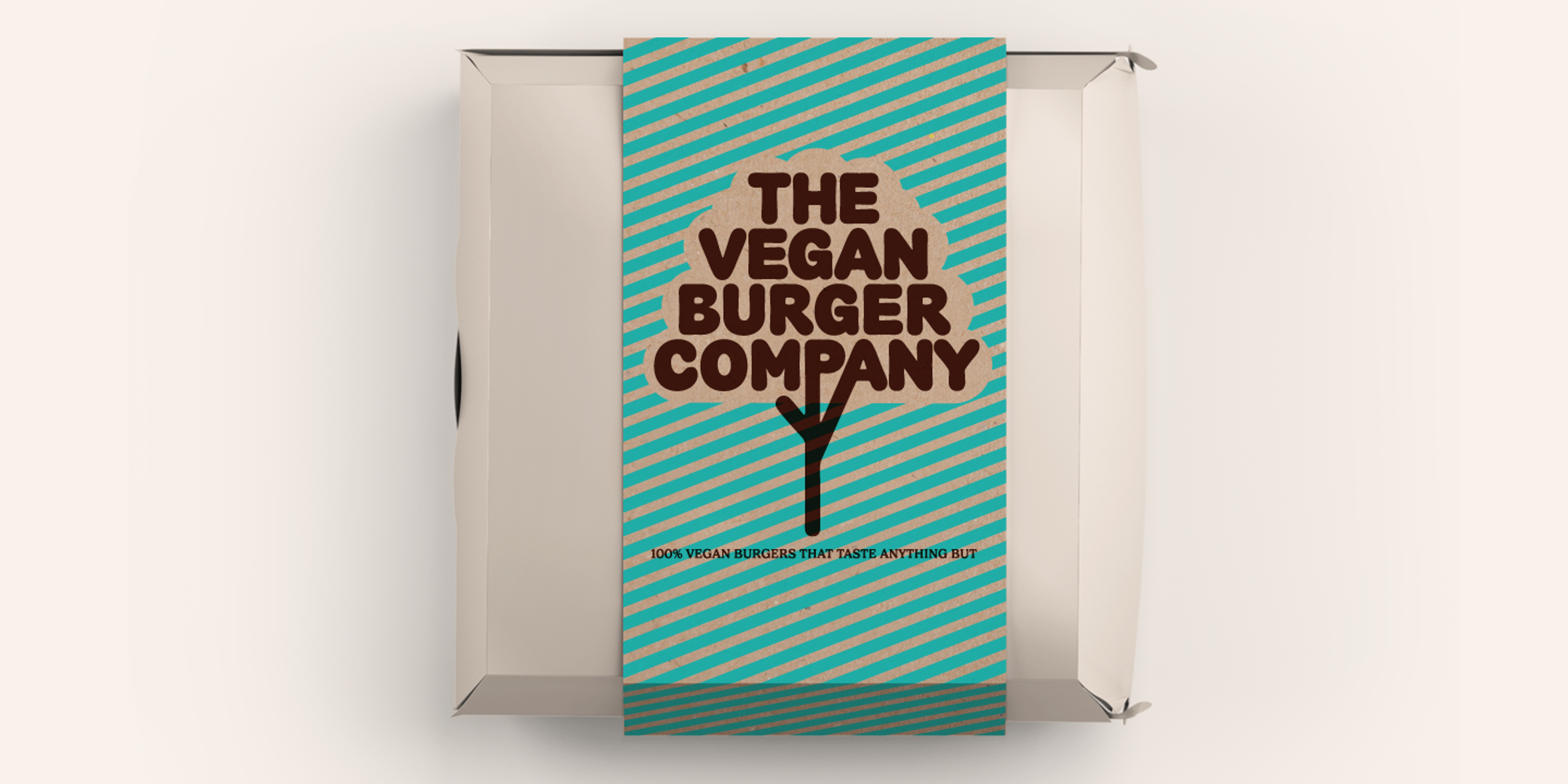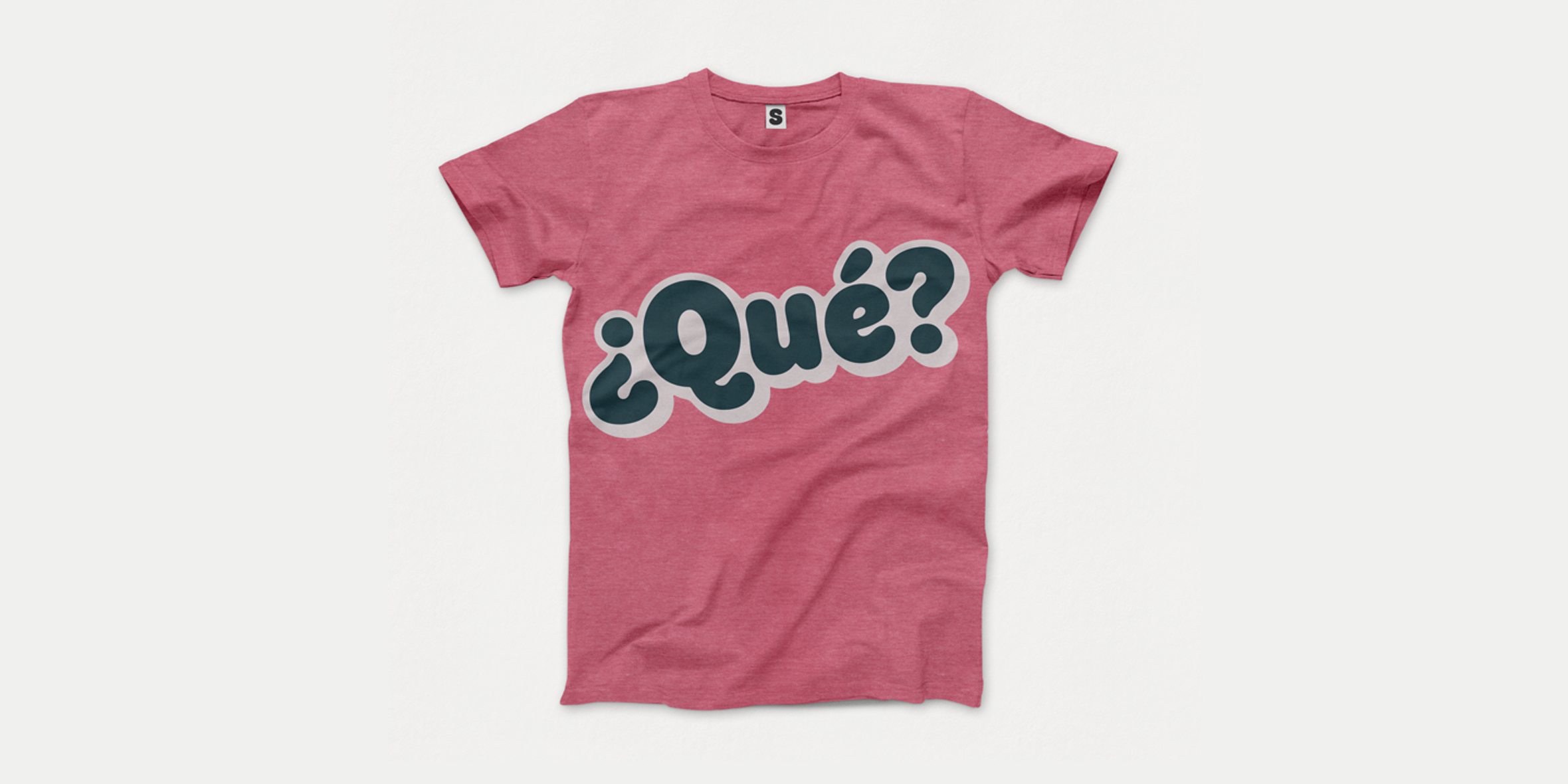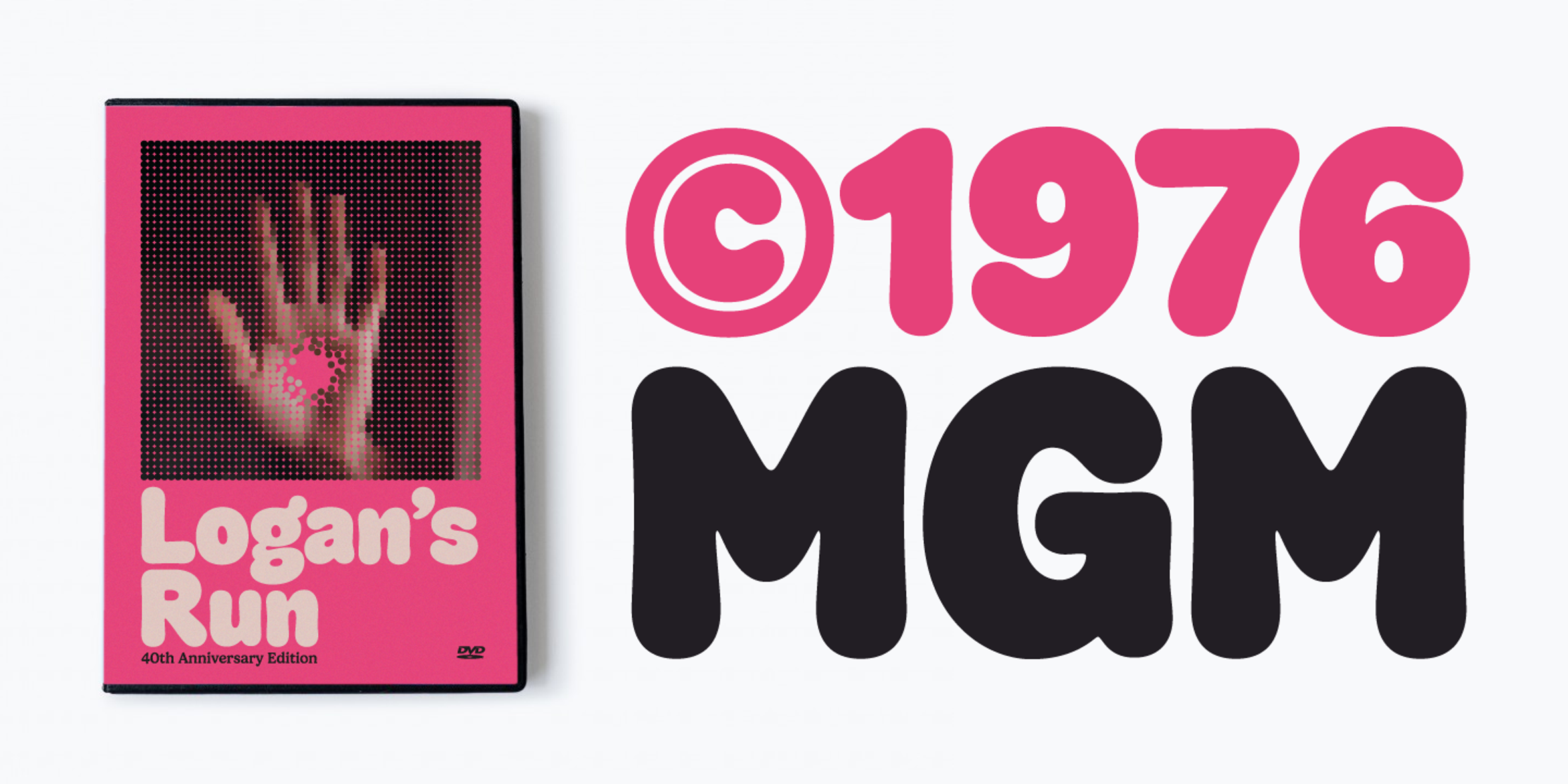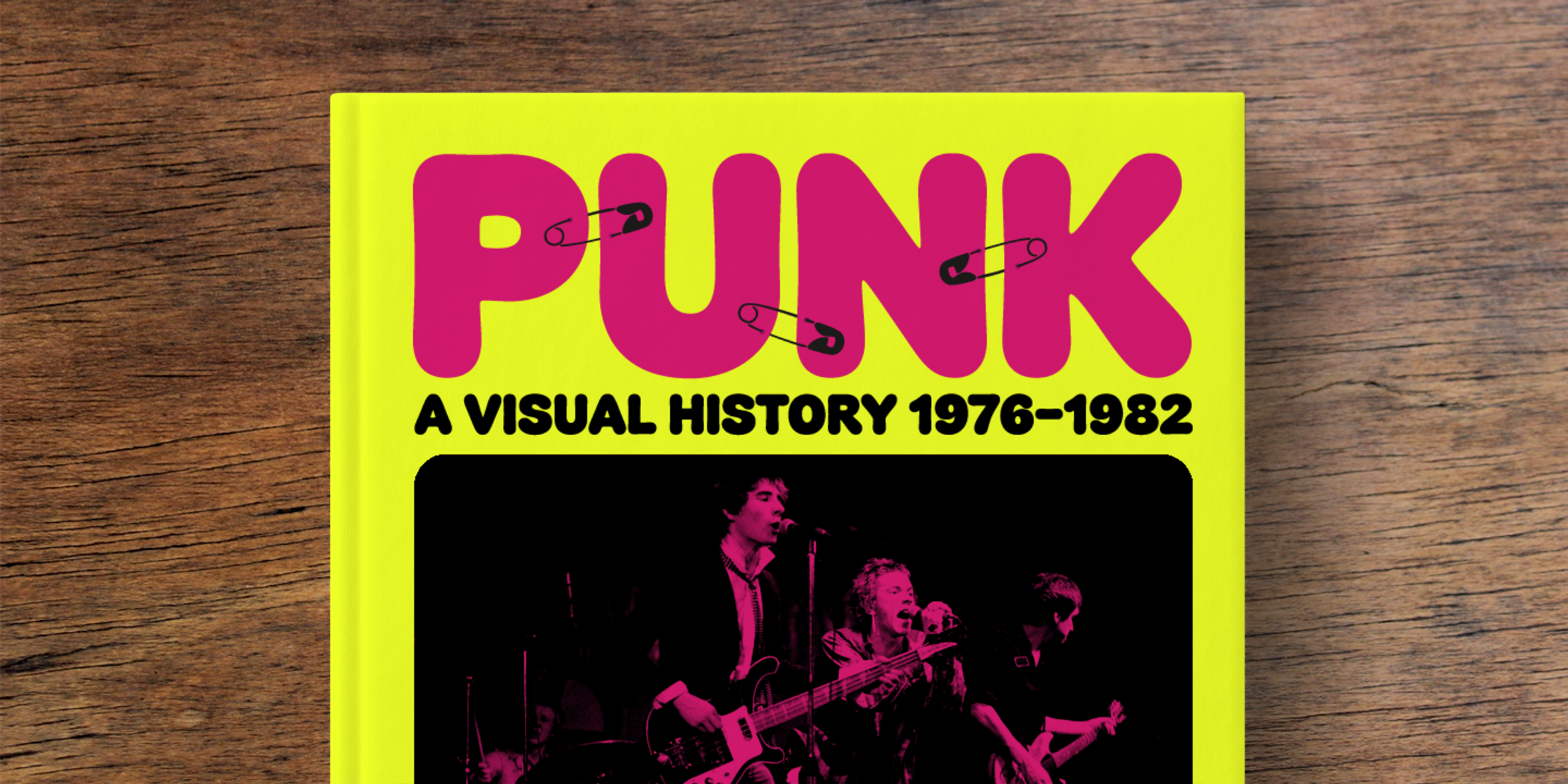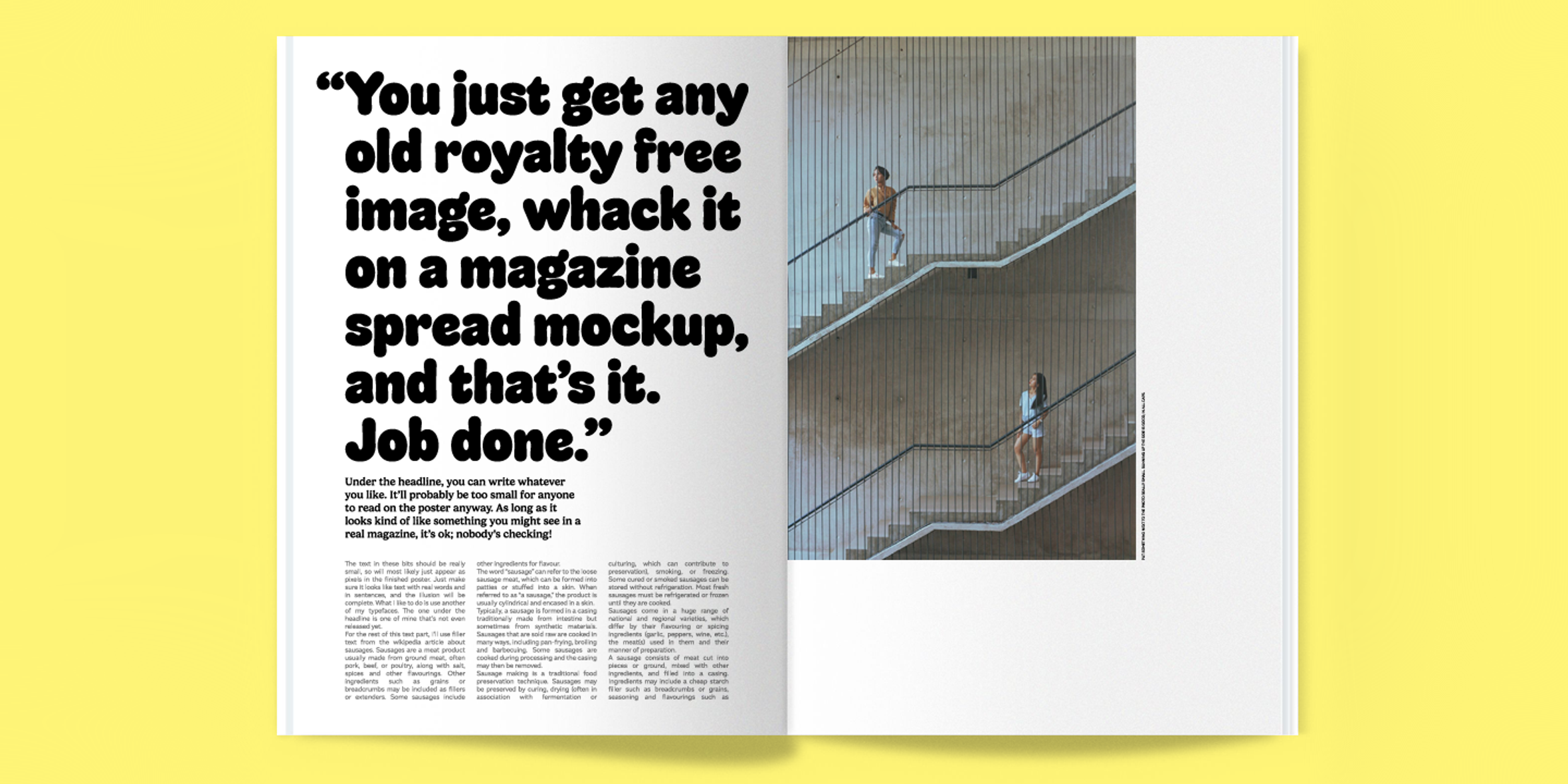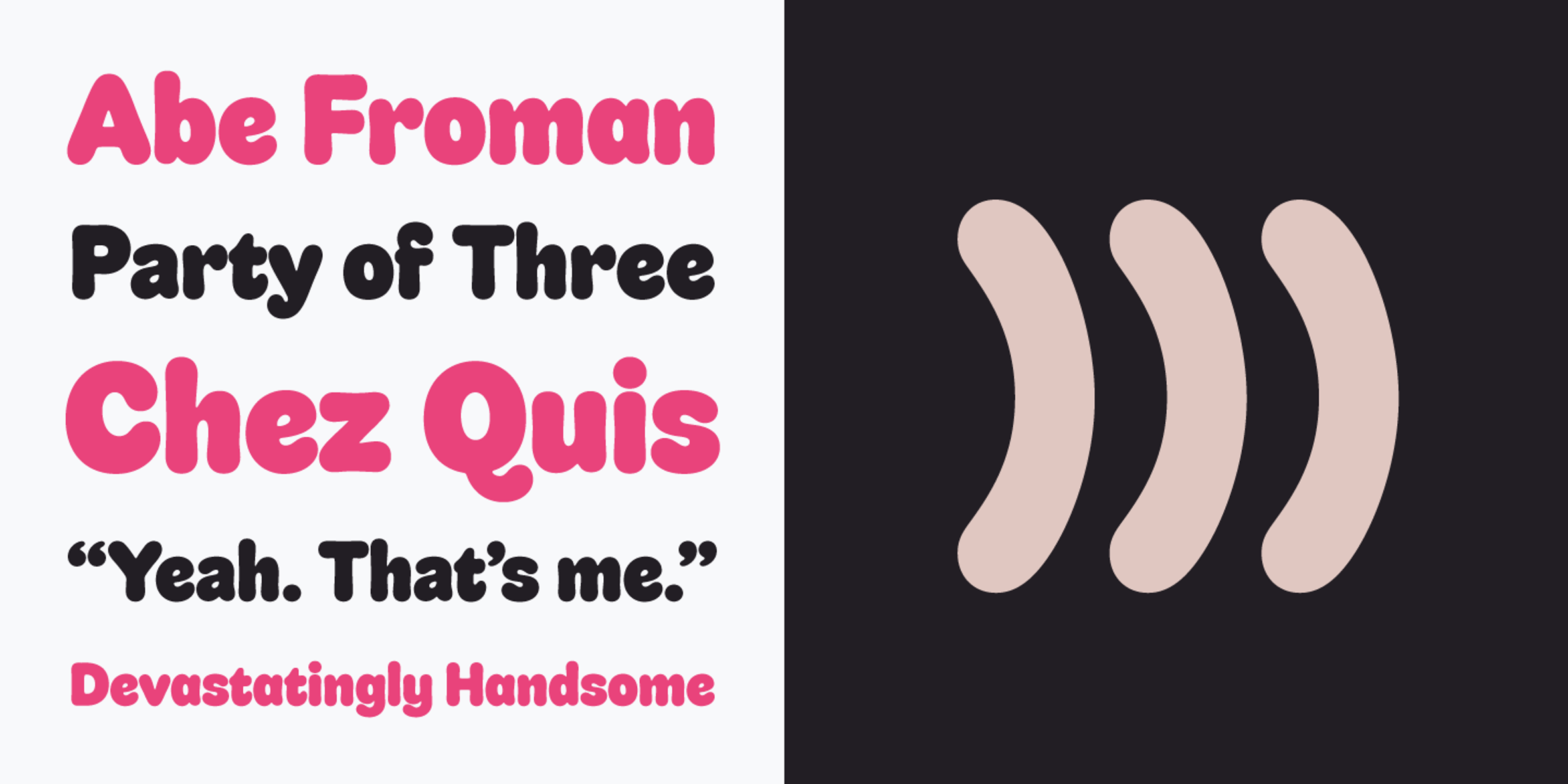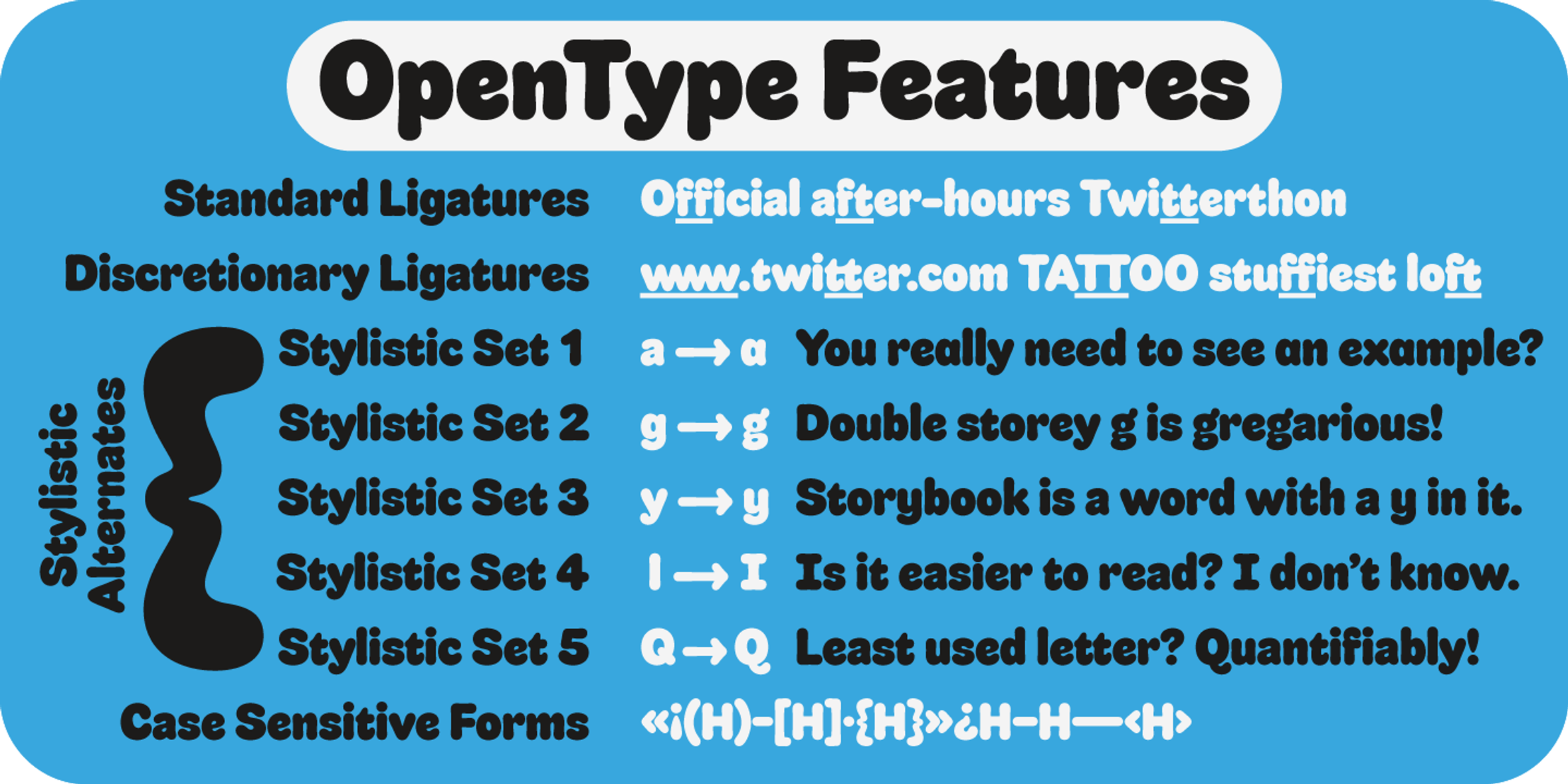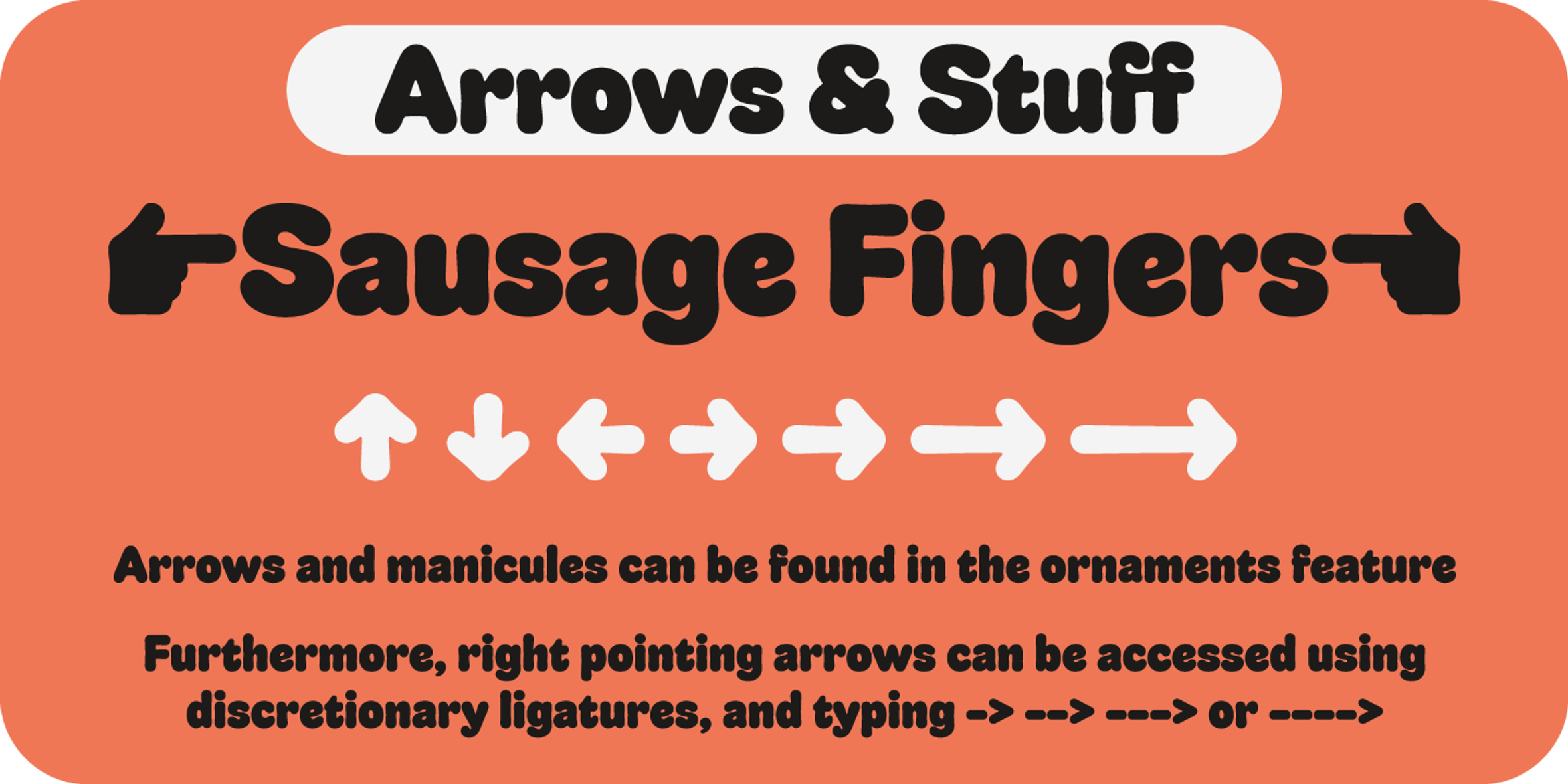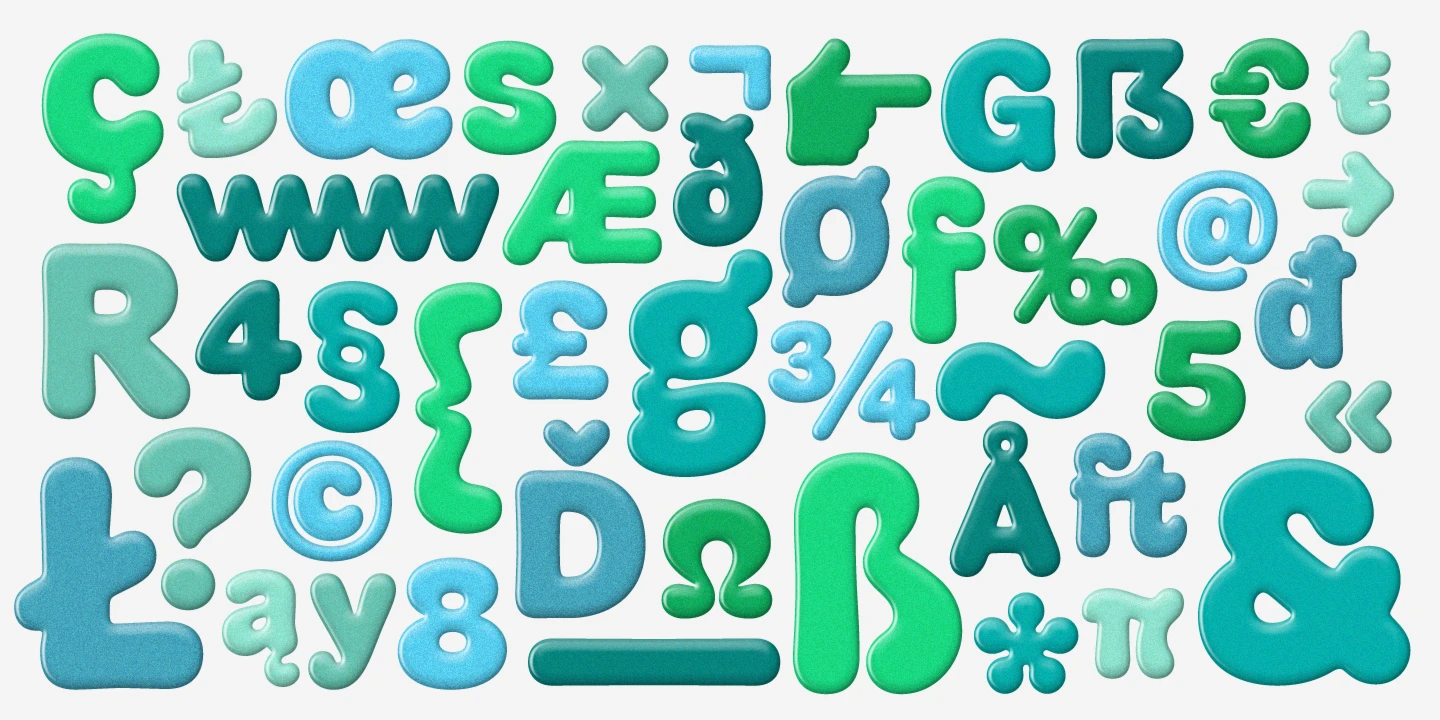
Sausage Font
Sausage
Sausage is unapologetically bold and bulbous. Influenced by magnetic fridge letters, hot dogs, and 70s phototype fonts. There isn’t a single corner in the entire font, and you’d be hard-pushed to find a straight line. This is as soft and friendly as it comes, and it is still equipped with numerous ligatures, alternates, and arrows for sophisticated typography. This seriously playful design is perfect for food and packaging, event branding, media and entertainment, merchandise, and books.
- Common Ligatures
- Discretionary Ligatures
- Ordinal Numerals
- Ornaments
- Stylistic Alternates